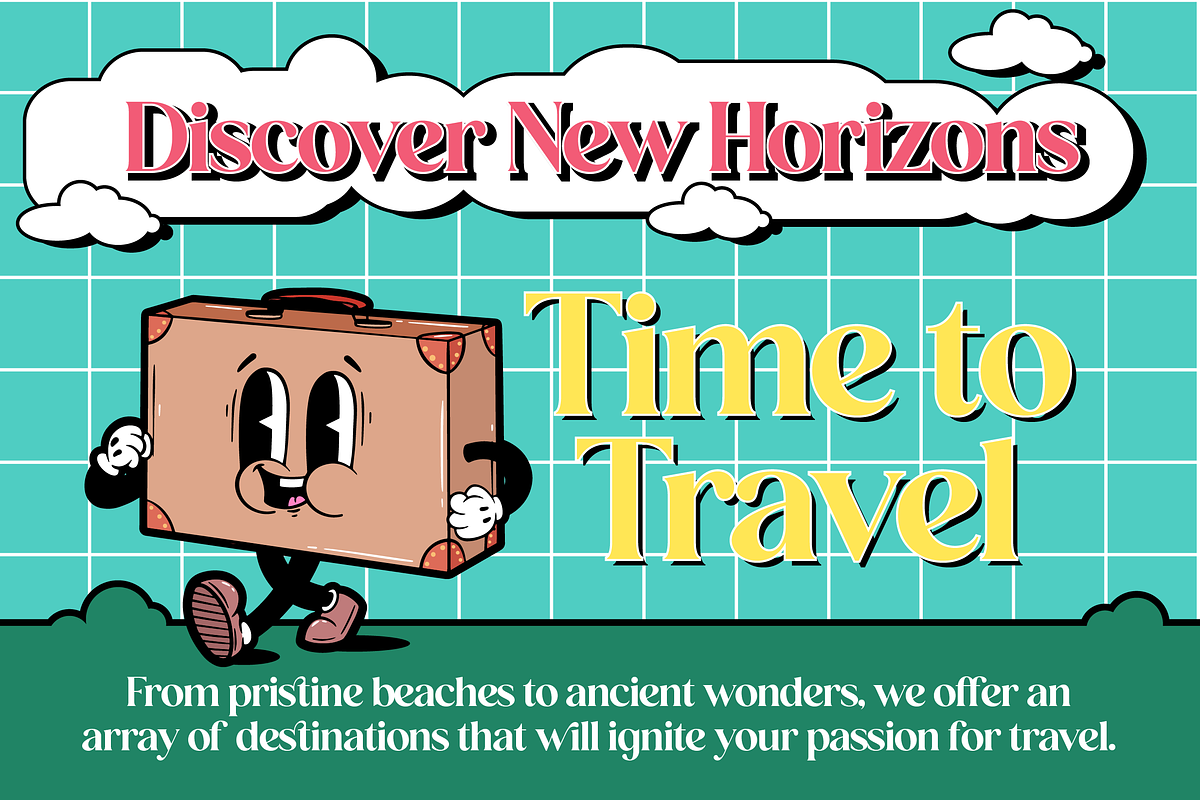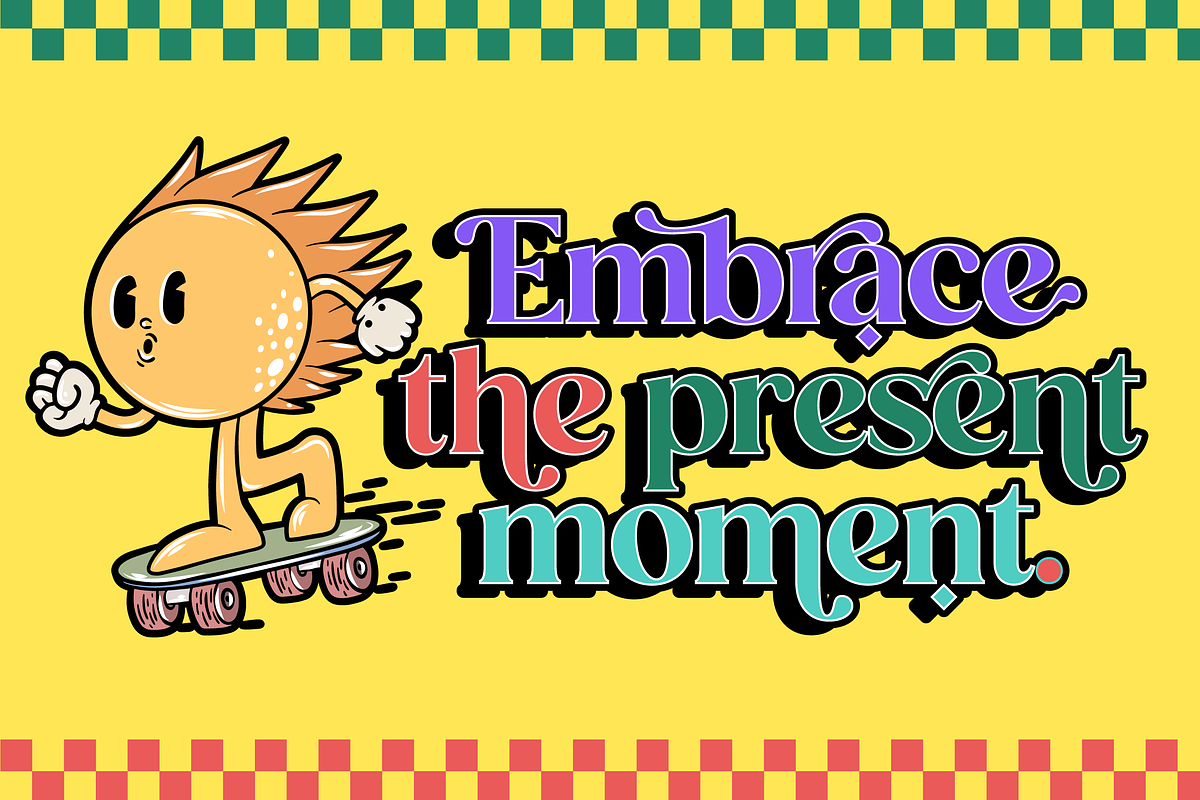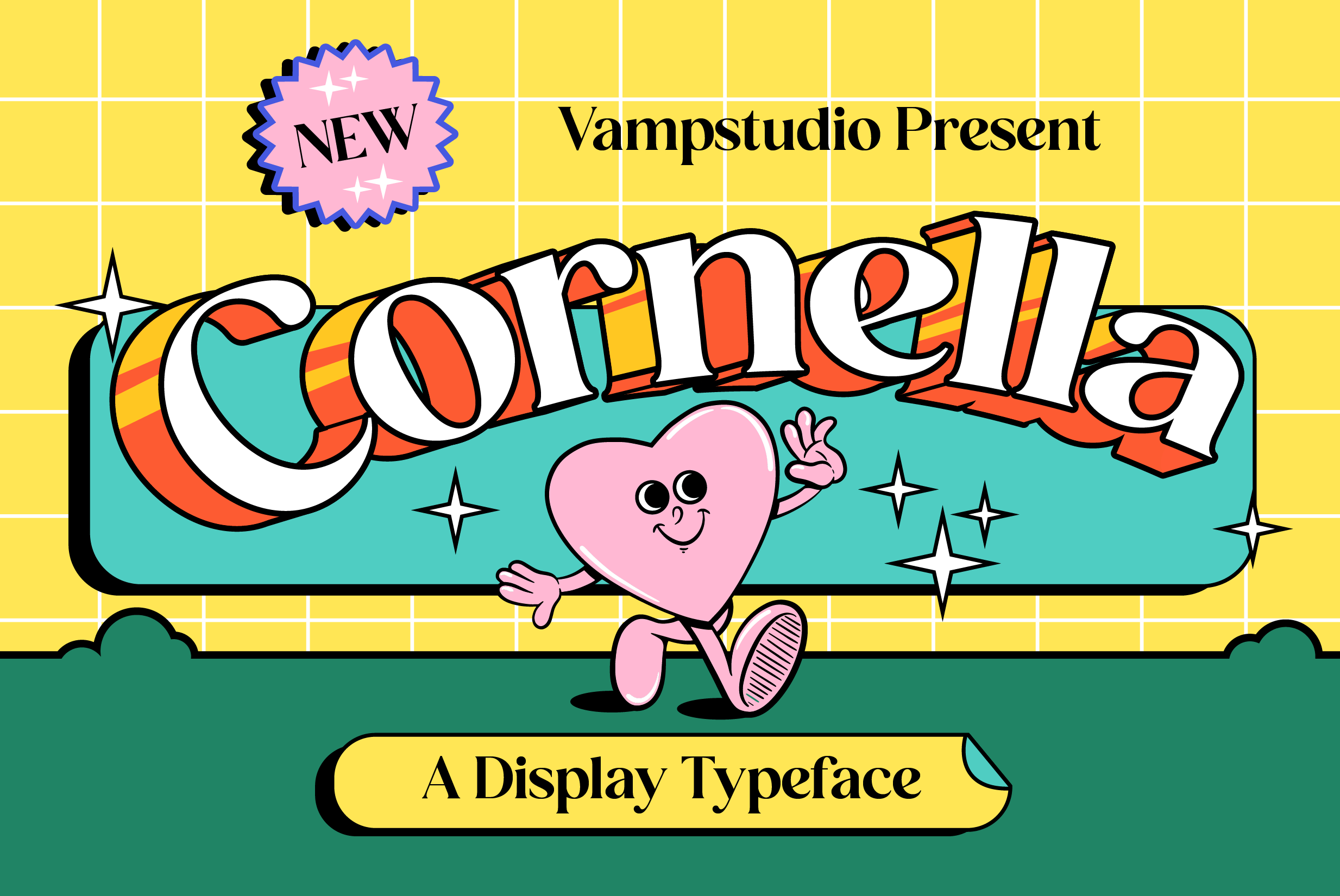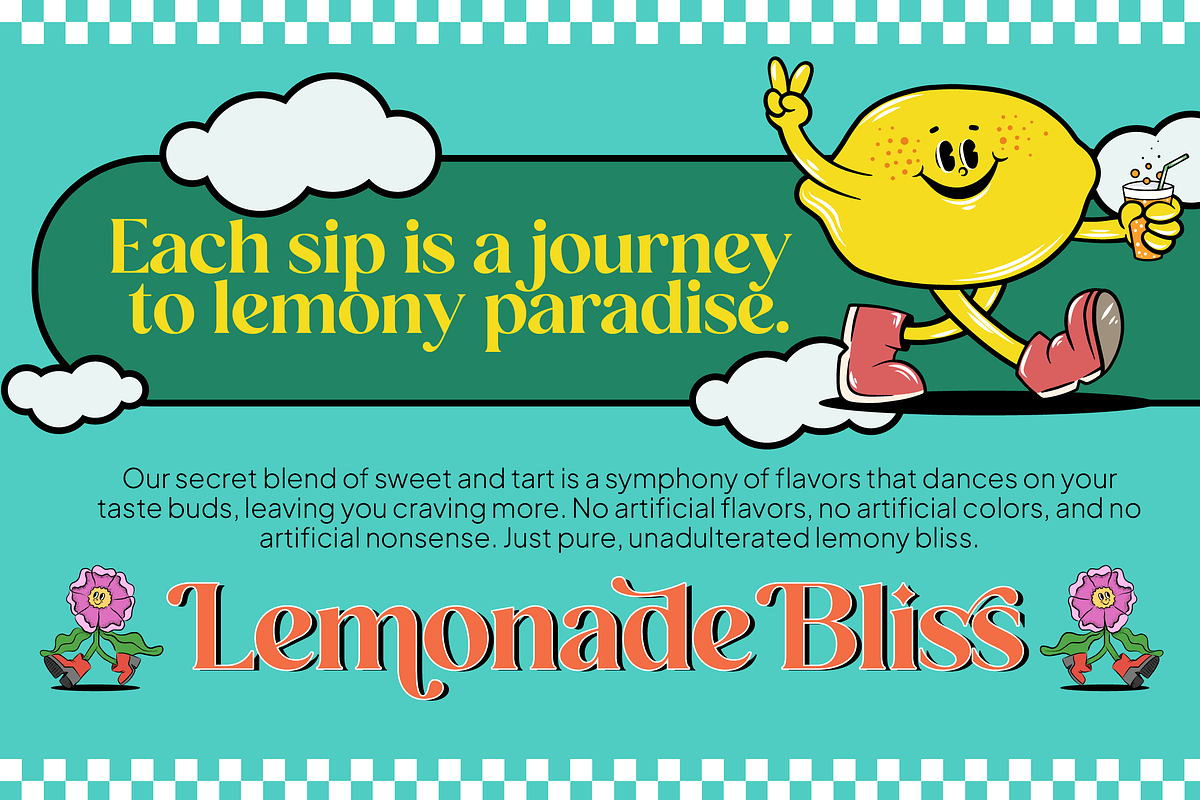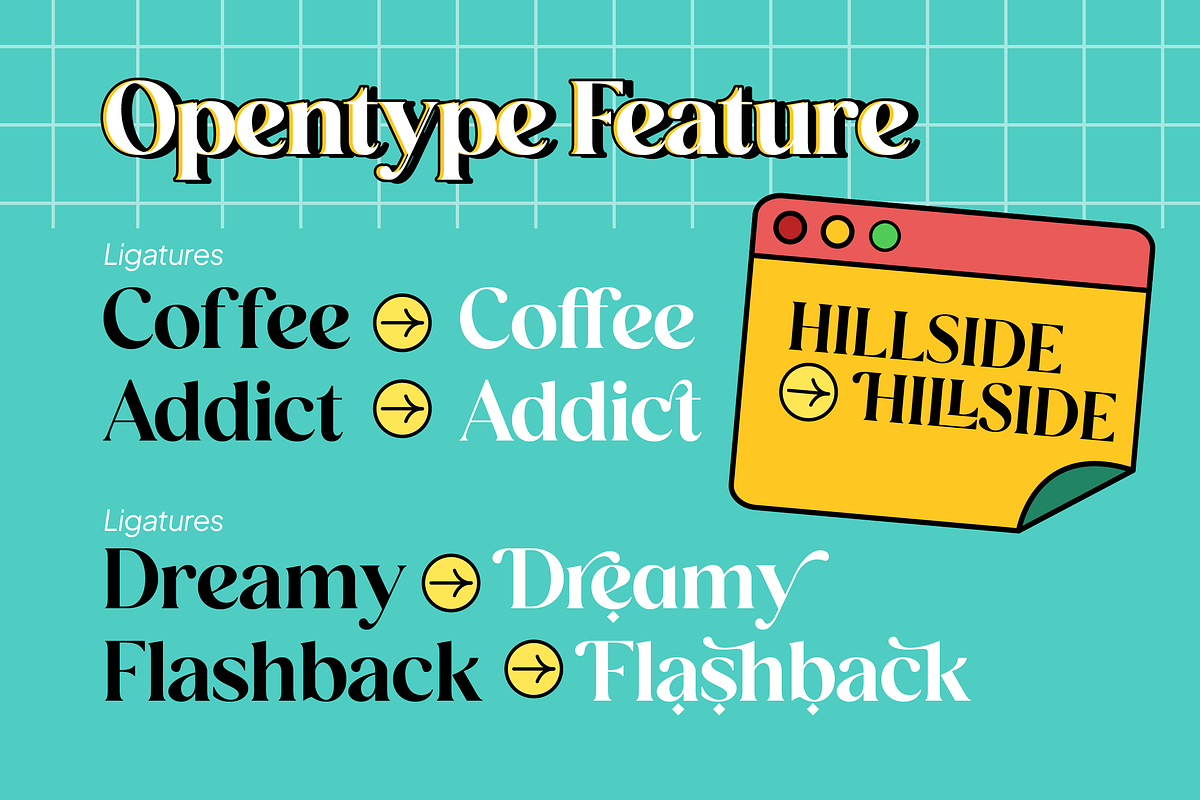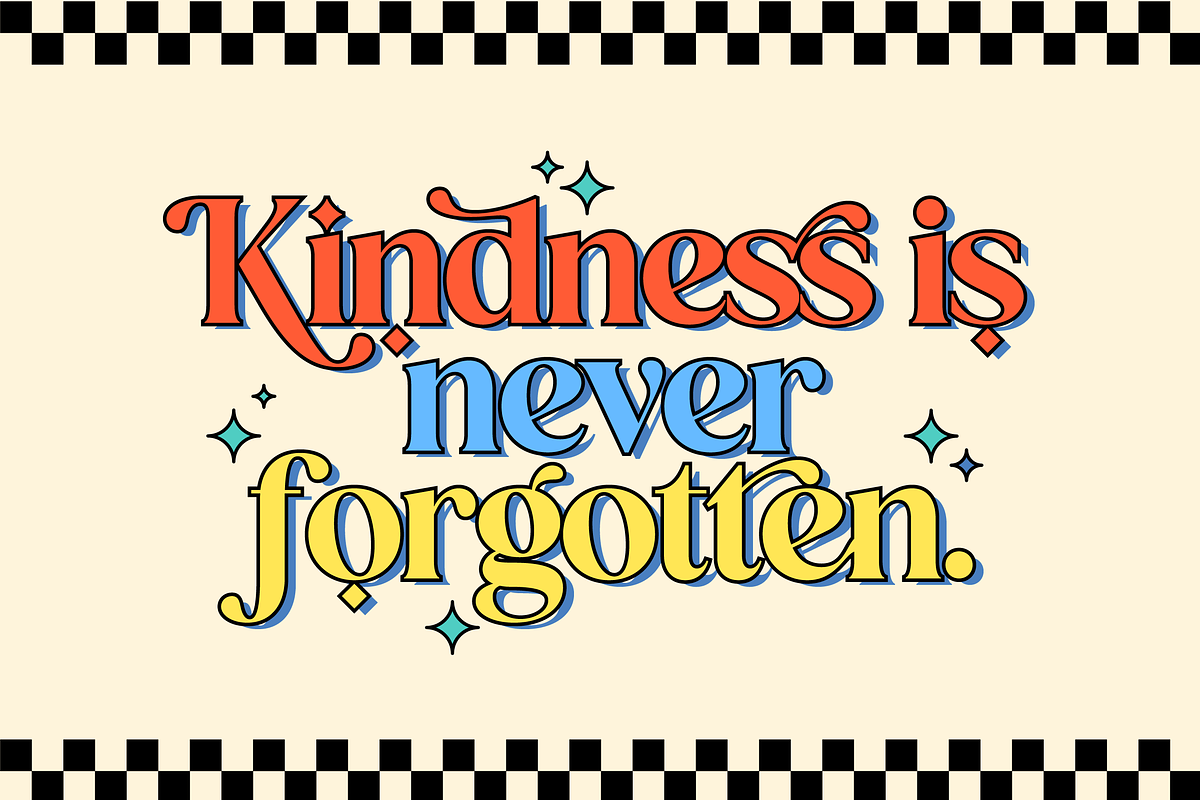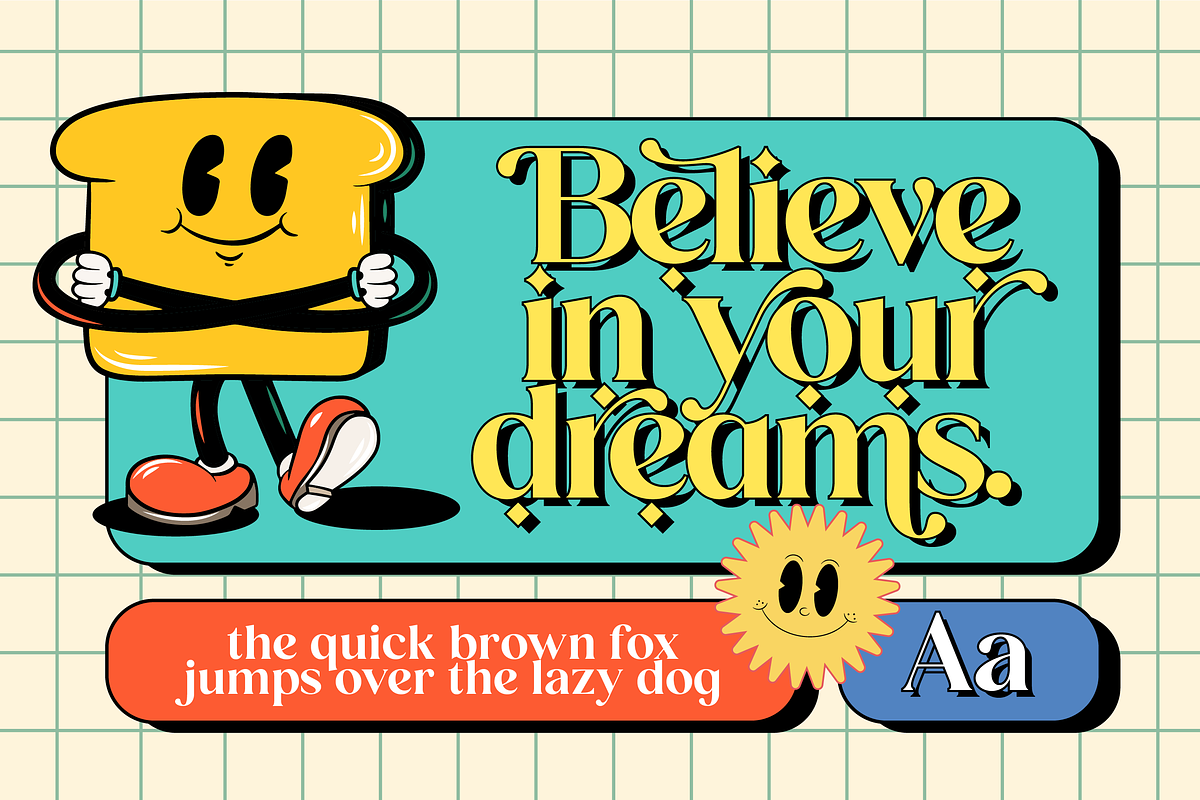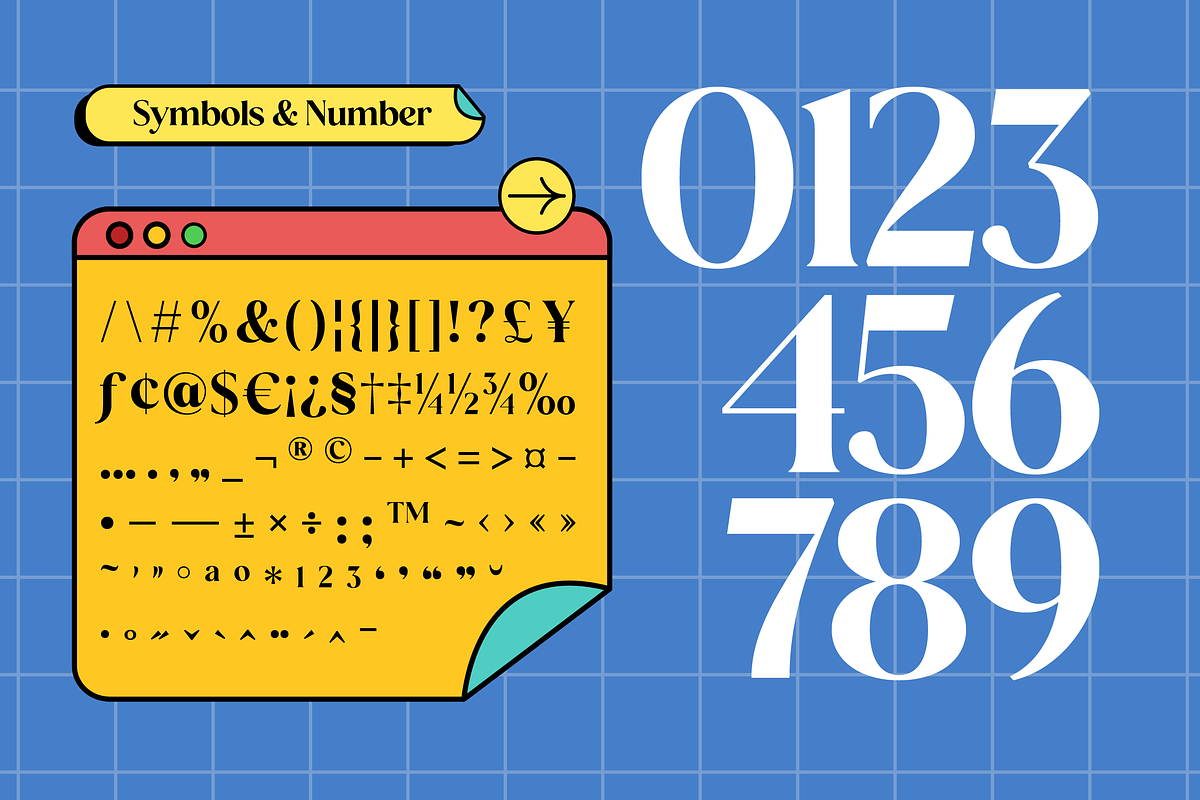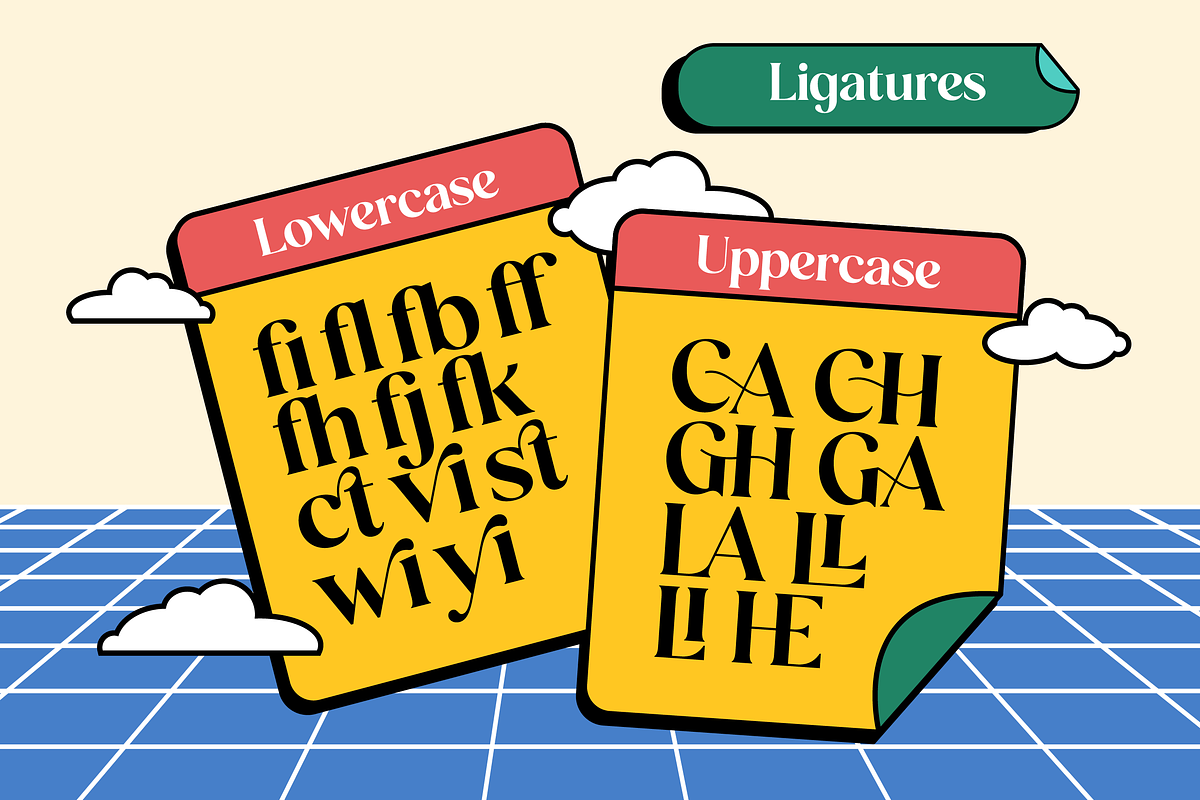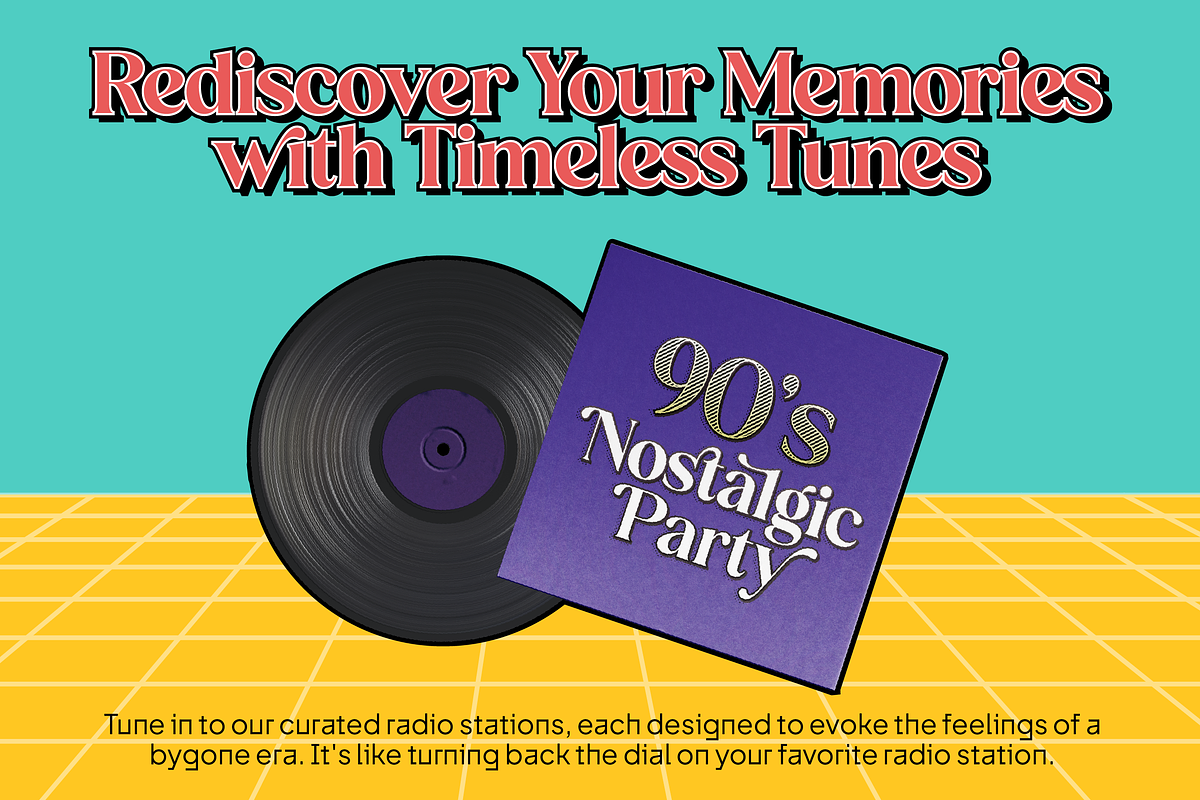
Cornella Display Retro 90's Font
Introducing "Cornella" – Embrace the Playful Nostalgia of the 90s with this Retro-Inspired Display Font!
Step into a world of fun and nostalgia with "Cornella," a playful display font that captures the vibrant essence of the 90s. Get ready to infuse your designs with retro charm and a dash of whimsical flair.
- Playful Retro Vibes: Cornella embodies the carefree spirit of the 90s, making it perfect for projects that crave a touch of playful nostalgia.
- Versatile Display: From posters to branding and digital designs, Cornella brings a lively and dynamic energy to any creative endeavor.
- Cheerful Typography: Each character is crafted with a playful demeanor, adding a sense of fun and liveliness to your projects.
Transport yourself back to the colorful and dynamic era of the 90s, where "Cornella" serves as your ticket to a world of playful design possibilities. More than just a font, it's a celebration of carefree vibes and retro joy.
Discover Cornella and let your designs dance with the playful spirit of the 90s. Unleash the power of nostalgia and inject a dose of fun into your creative projects with the delightful "Cornella" font!